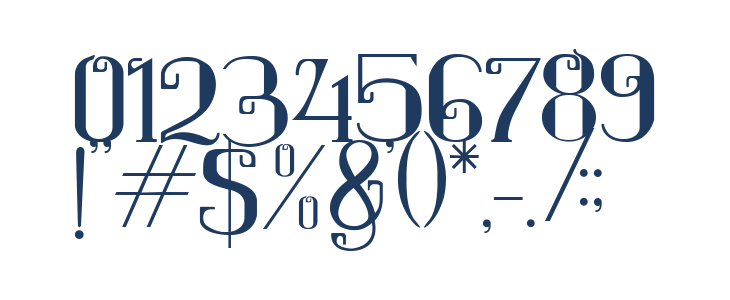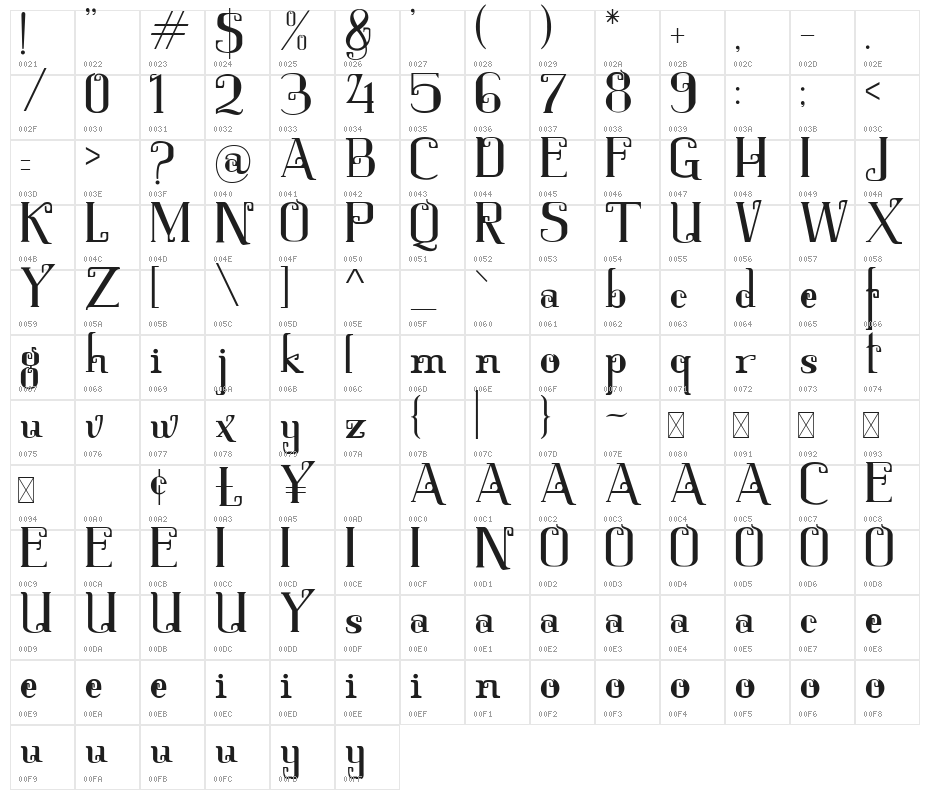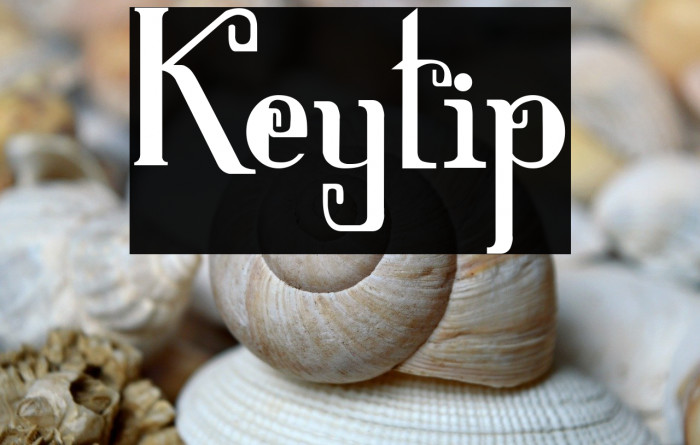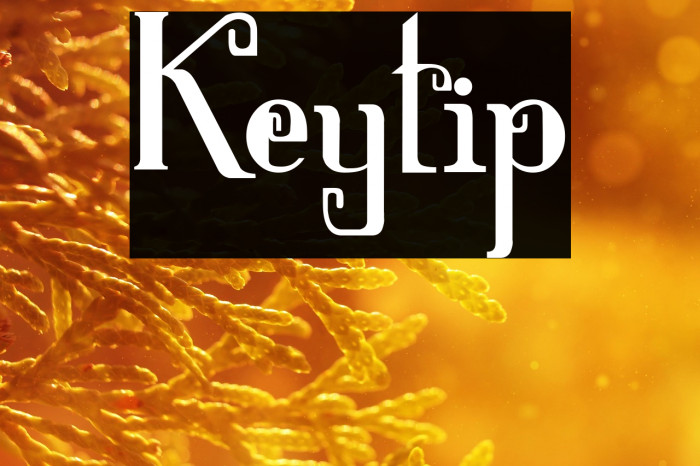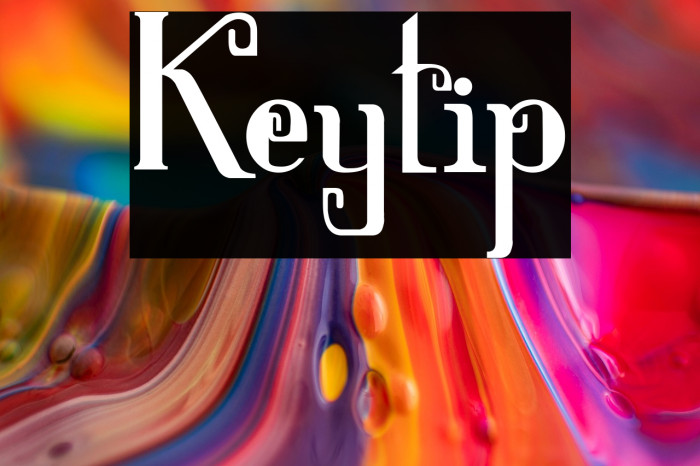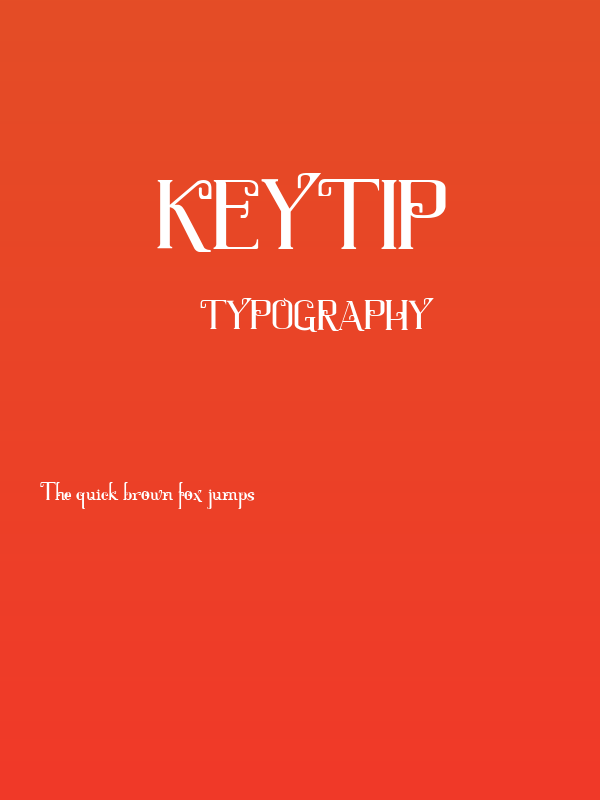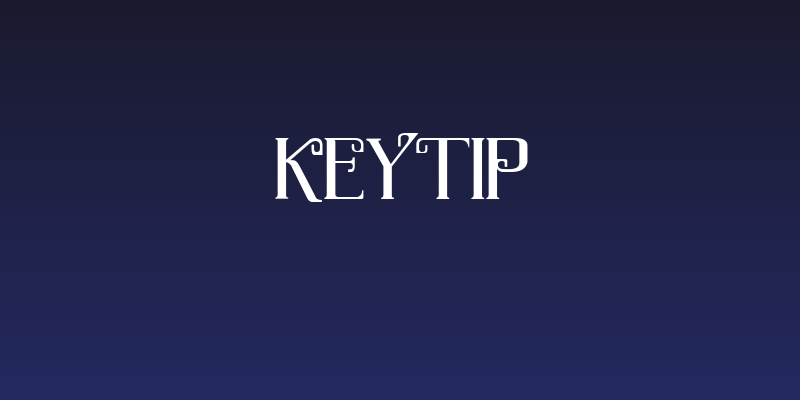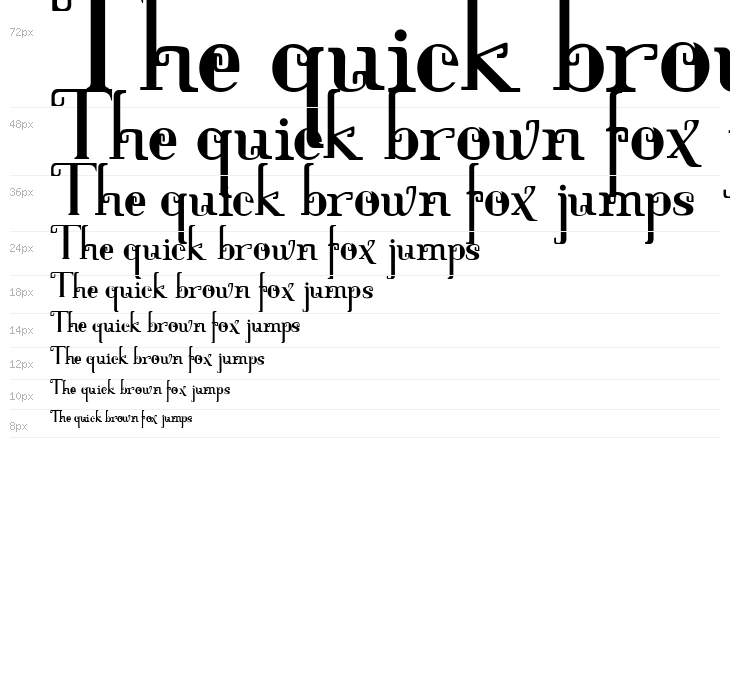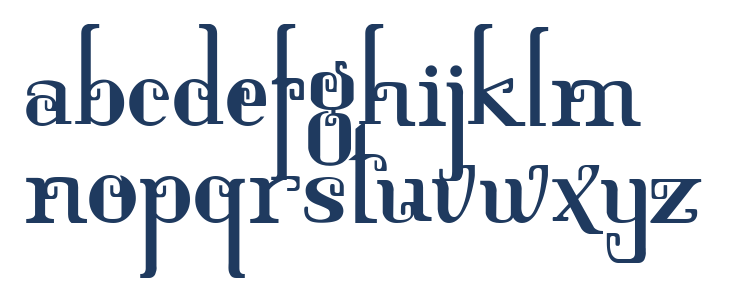
Keytip Font
Keytip Description
This font features a unique blend of decorative and modern elements, characterized by its distinct curls and flourishes on certain letters. The uppercase letters are bold and striking, with a playful twist on traditional serif forms. The lowercase letters maintain a consistent style, offering a whimsical yet readable appearance. Numbers are designed with a similar flair, ensuring cohesion across all characters. Special characters are creatively integrated, maintaining the font's overall aesthetic. This font's artistic style makes it suitable for eye-catching designs.
| Proposed Projects | Ideal for branding, posters, invitations, and any project requiring a distinctive and artistic touch. |